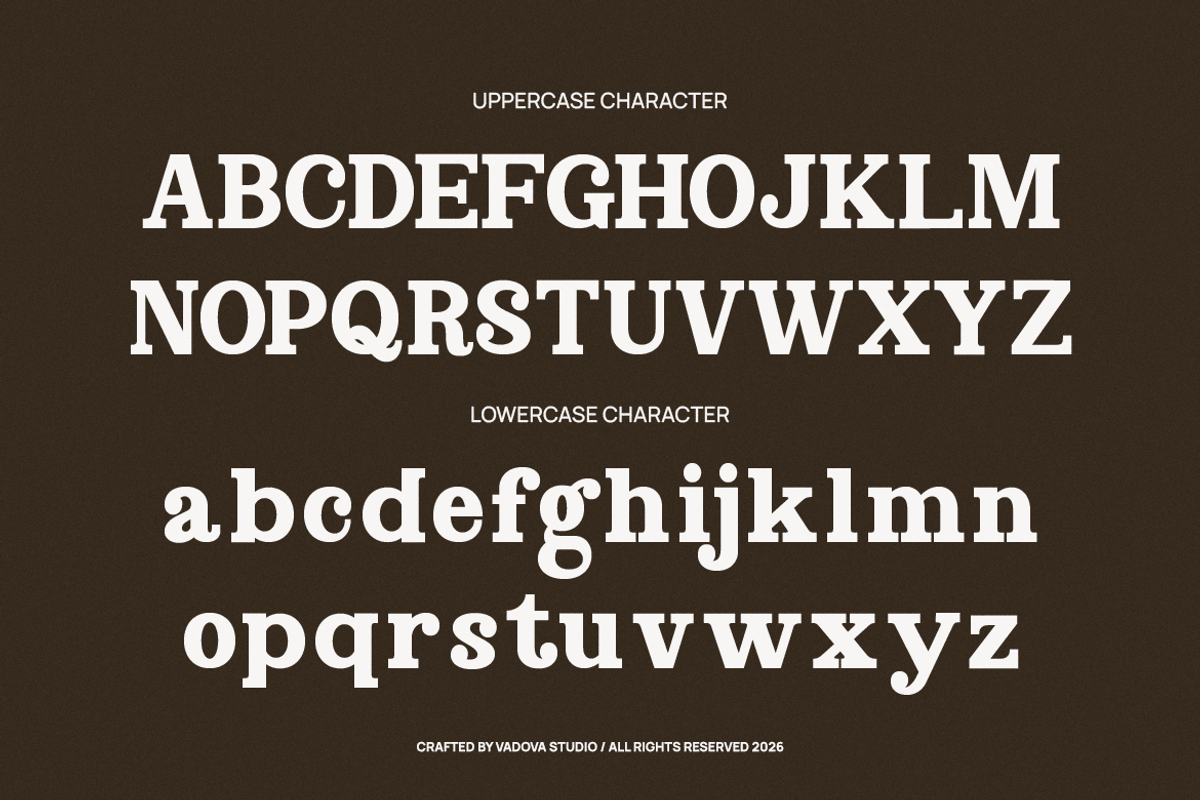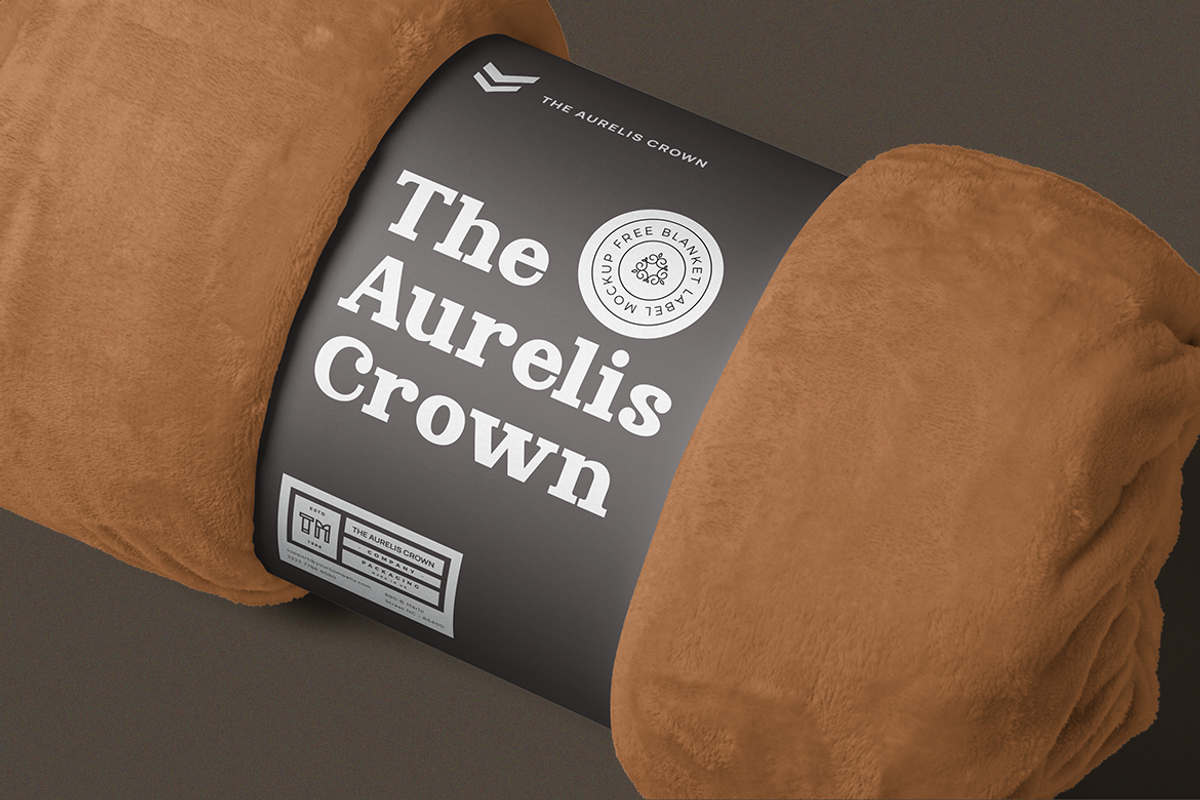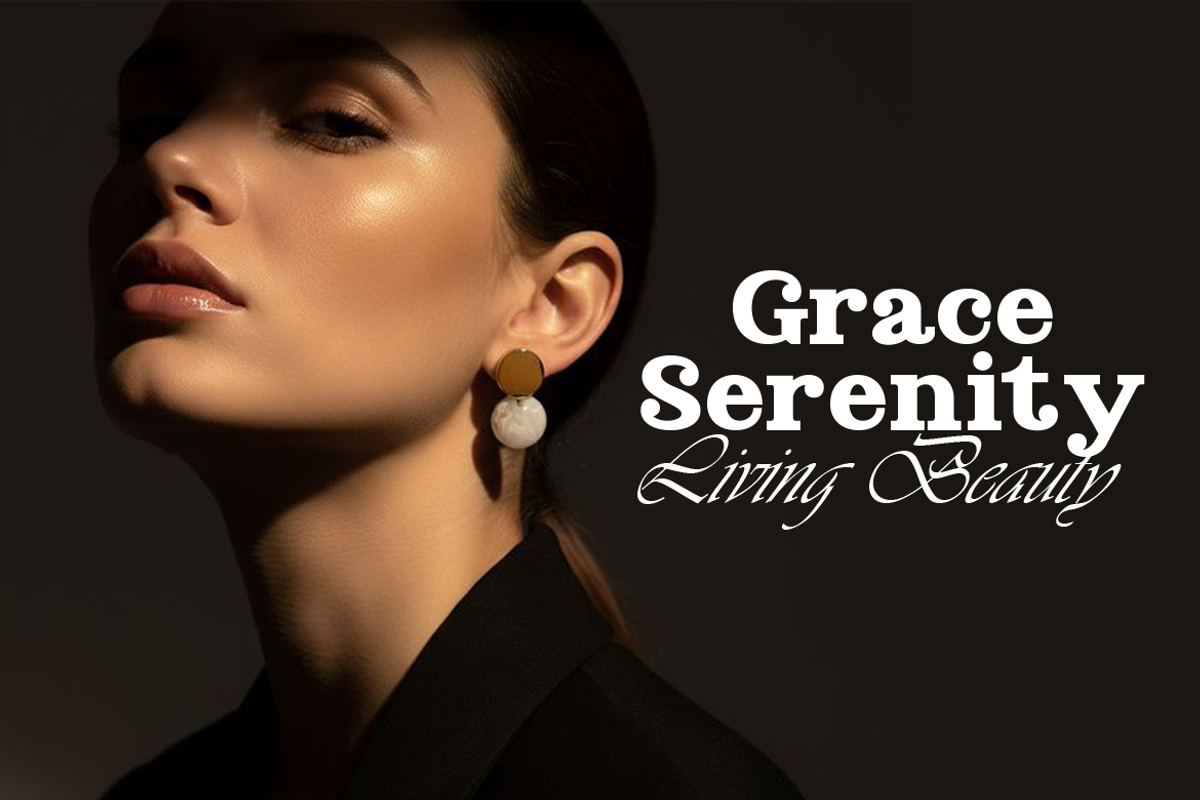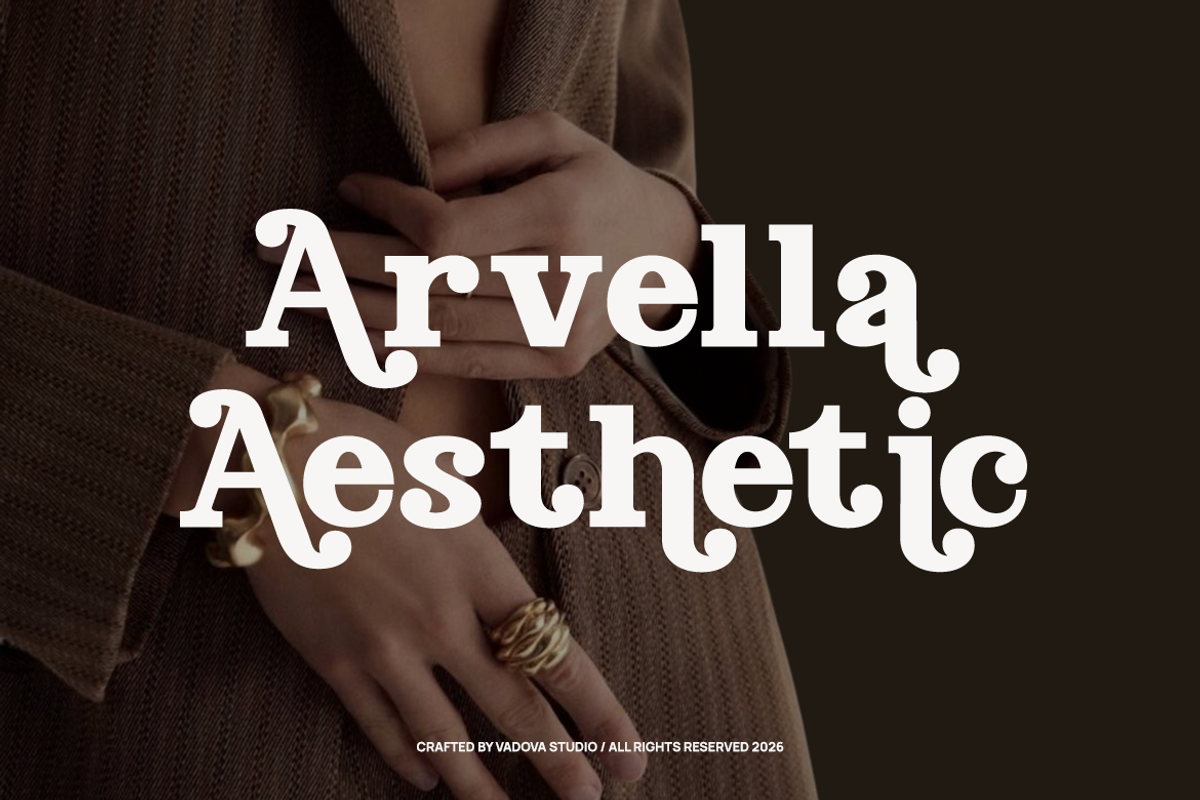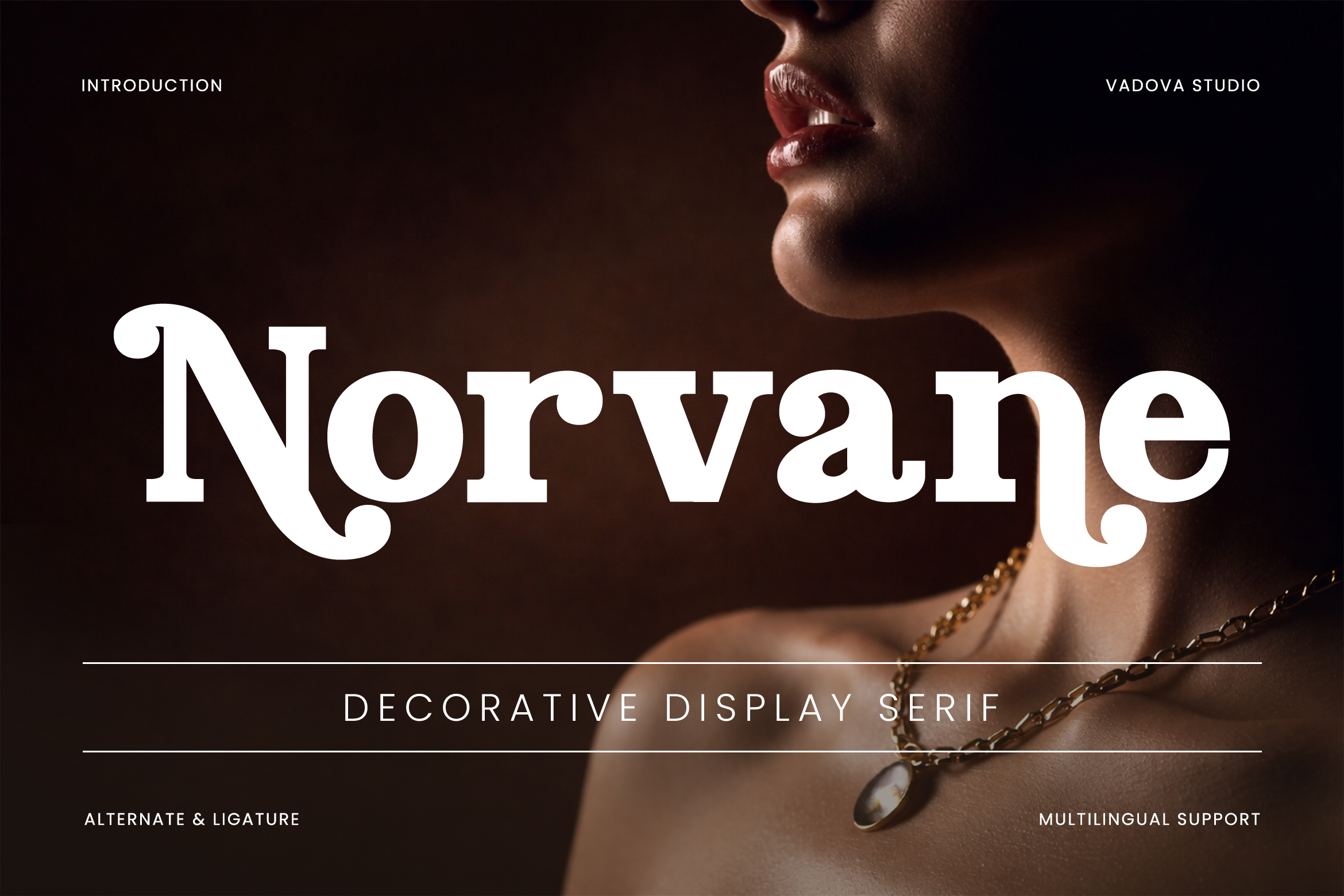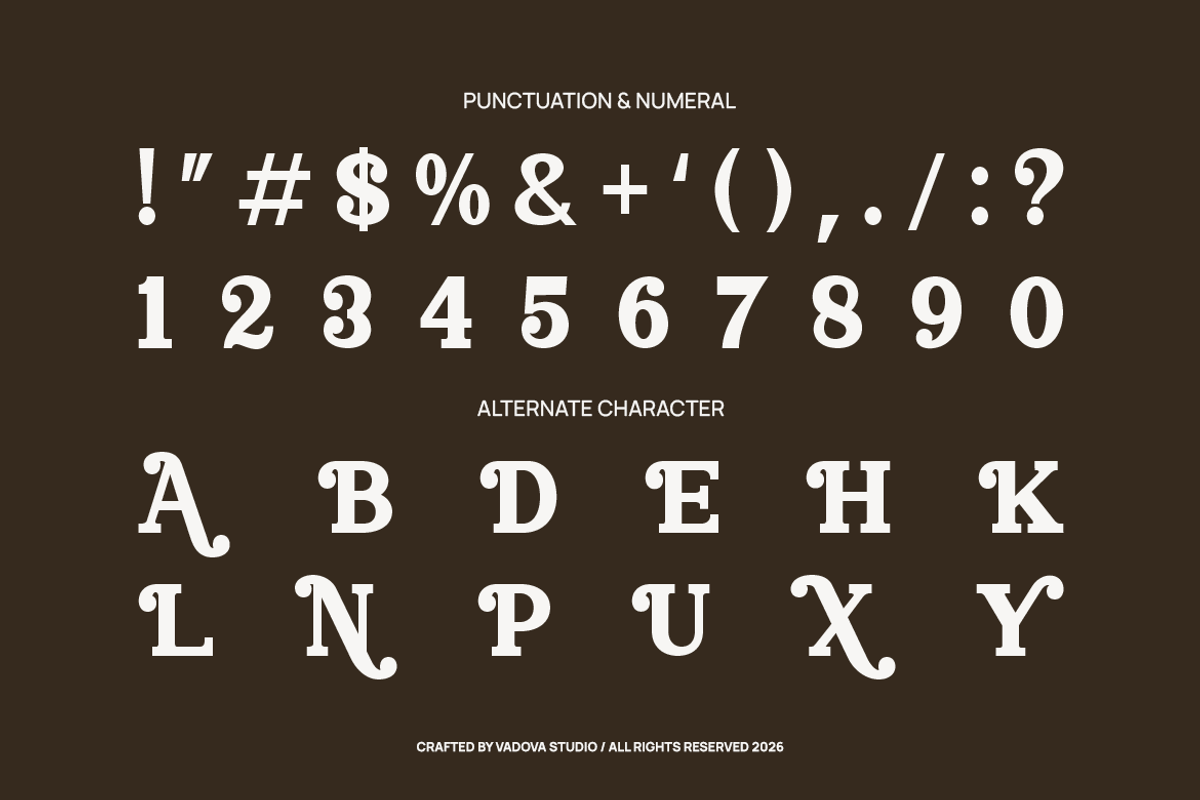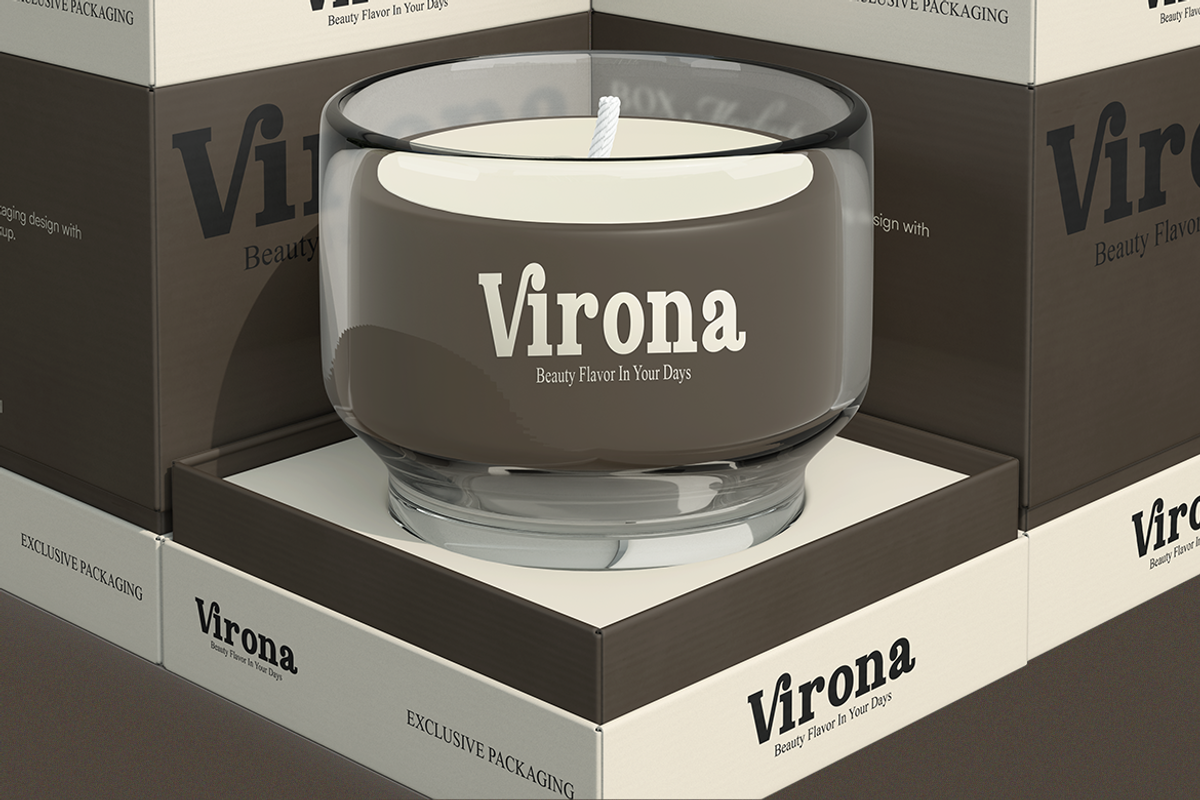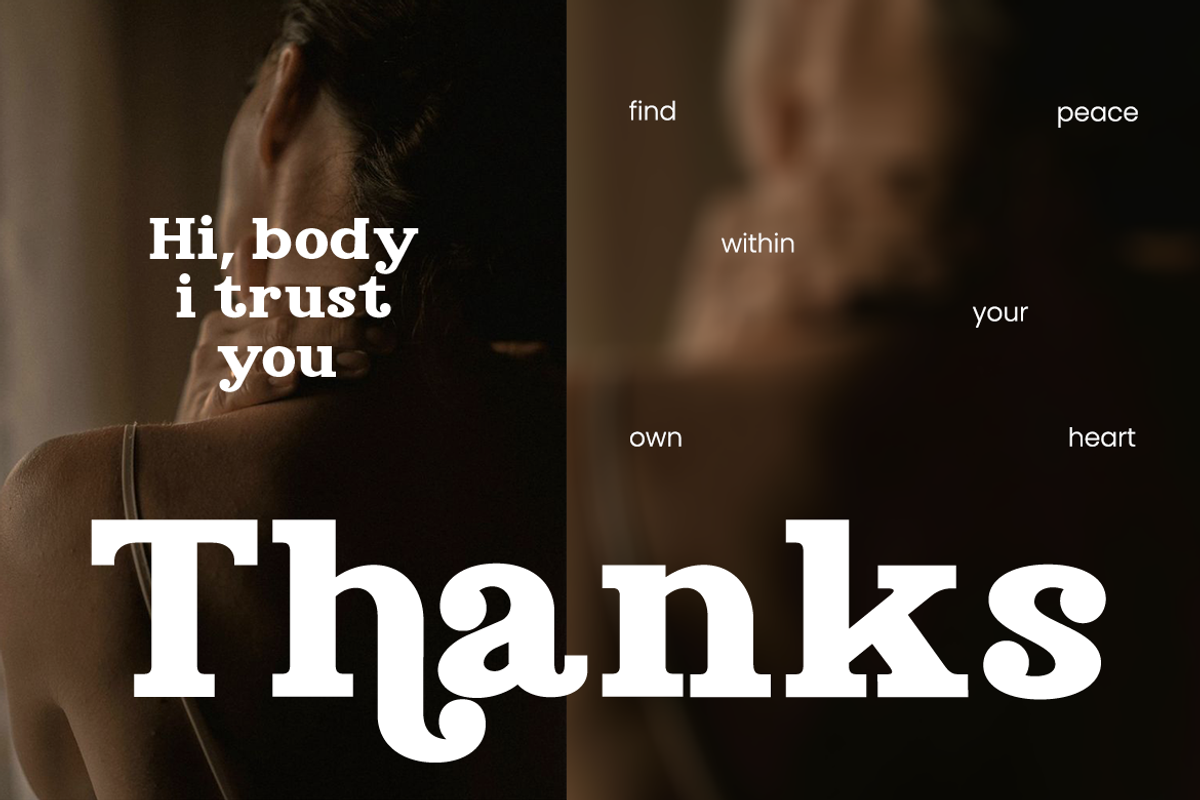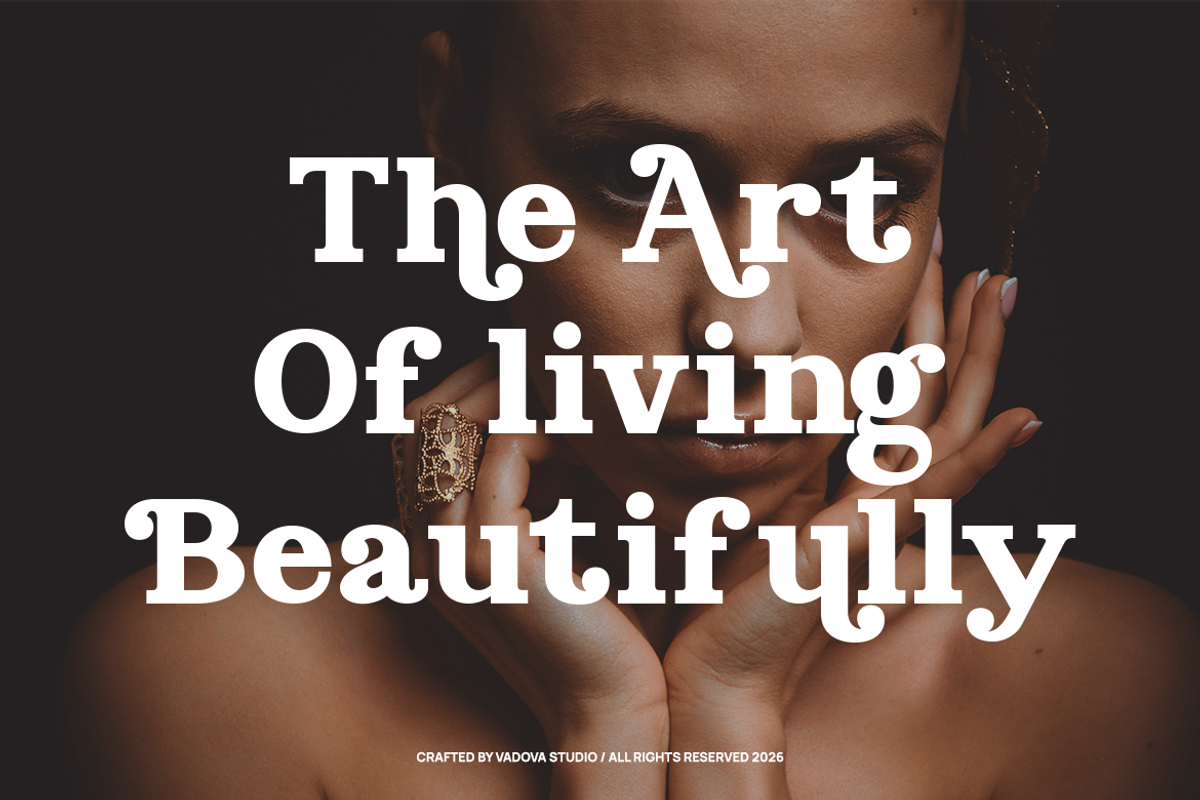
Norvane Decorative Serif Font
Norvane is a decorative display serif typeface that combines bold classic structure with expressive curved terminals and distinctive serif details. The font includes uppercase and lowercase characters, numerals, punctuation, and stylistic alternates with ligature support for enhanced typography composition. Designed with strong contrast and elegant proportions, it delivers a refined yet eye-catching presence suitable for high-impact headlines.
This font is highly relevant for projects that require strong visual identity and expressive typography, especially in luxury branding, fashion editorials, premium packaging, and high-end marketing materials. Its decorative serif style makes it effective for headlines, logos, magazine layouts, and creative campaigns where elegance and bold character are essential.
- High-contrast display serif with bold strokes and delicate thin transitions
- Distinctive decorative terminals and soft curved endings for an elegant personality
- Subtle vintage-inspired details that add a classic yet refined character
- Strong vertical stress enhancing readability and visual impact in large sizes
- Balanced spacing optimized for headlines, editorial layouts, and luxury branding
- Luxury brand identity and high-end logo design with strong visual presence
- Editorial layouts, fashion magazines, and artistic typography compositions
- Beauty, jewelry, and fragrance packaging with an elegant and premium feel
- Wedding invitations, event branding, and romantic-themed designs
- Social media visuals, posters, and campaigns that emphasize style and sophistication
Define your visuals with Norvane, where classic serif meets modern luxury